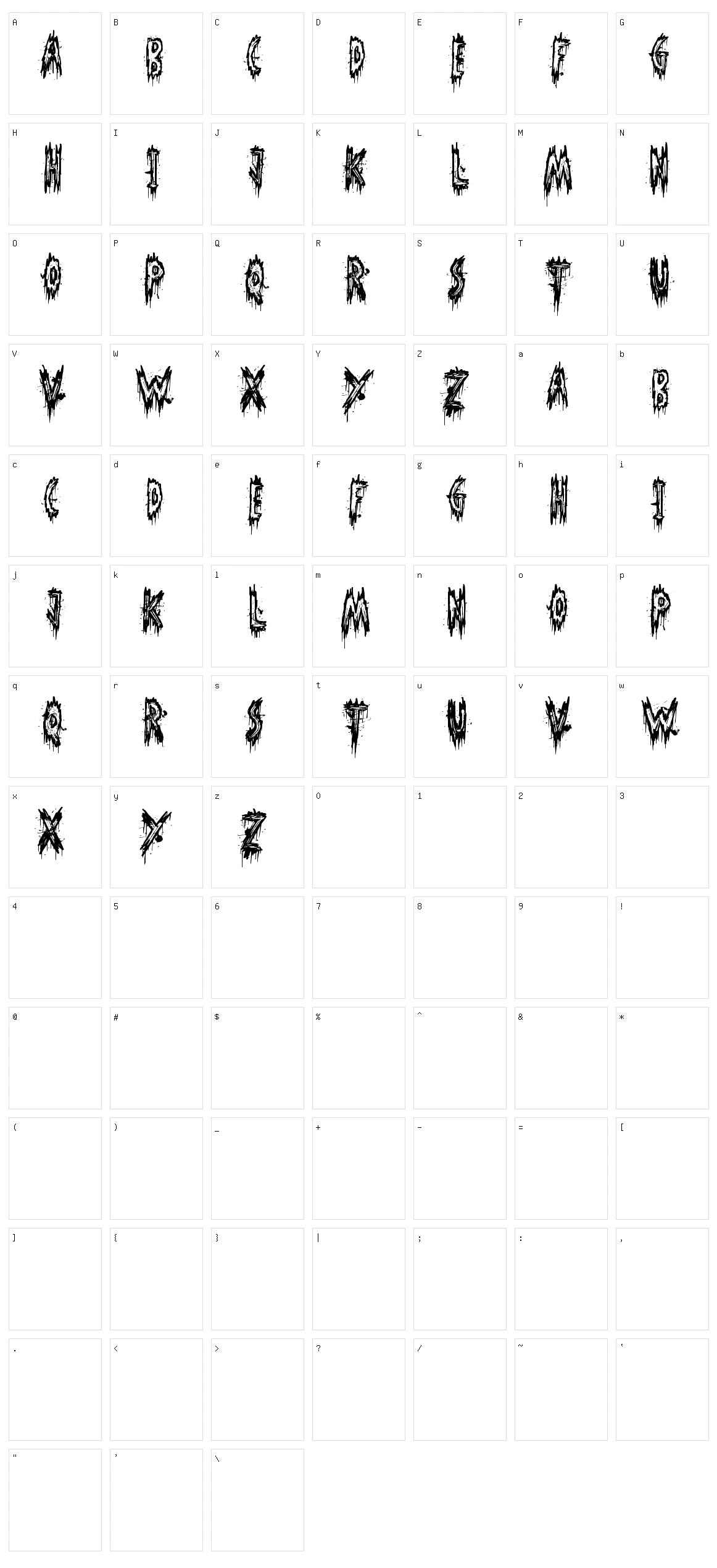
The free font Phantom Ghost is carefully designed by JSH creates, showcasing a thoughtful balance of creativity and usability and falls under the Horror font style. When you download the ZIP file, it contains only 91.32 KB of font files, making it lightweight and quick to download. Please review the license details below to understand permitted usage and distribution rights. If license information is not available, we recommend using this font for personal projects only or contacting the author directly for commercial usage permissions.